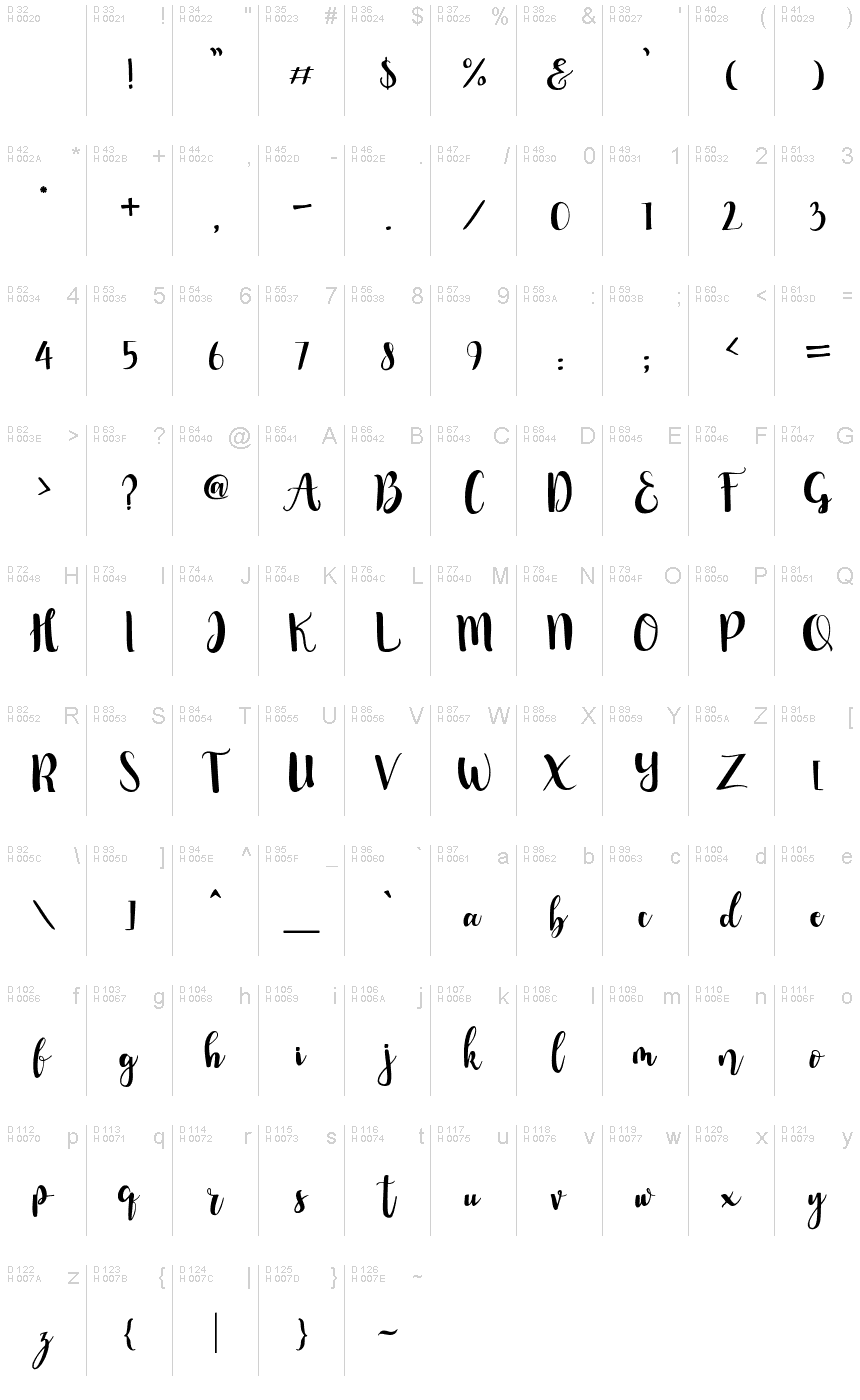
Girl
Meet Girl, the charming and playful handwritten font by infontree store. With its semi-bold weight, this font brings a touch of elegance while still maintaining a fun and casual feel. Perfect for projects that require a personal touch, such as wedding invitations, greeting cards, or social media graphics. Let this font add personality to your branding or elevate your blog posts with its unique style. Whether you're designing for a fashion brand or creating printables for your Etsy shop, Girl is the perfect choice to make your project stand out.